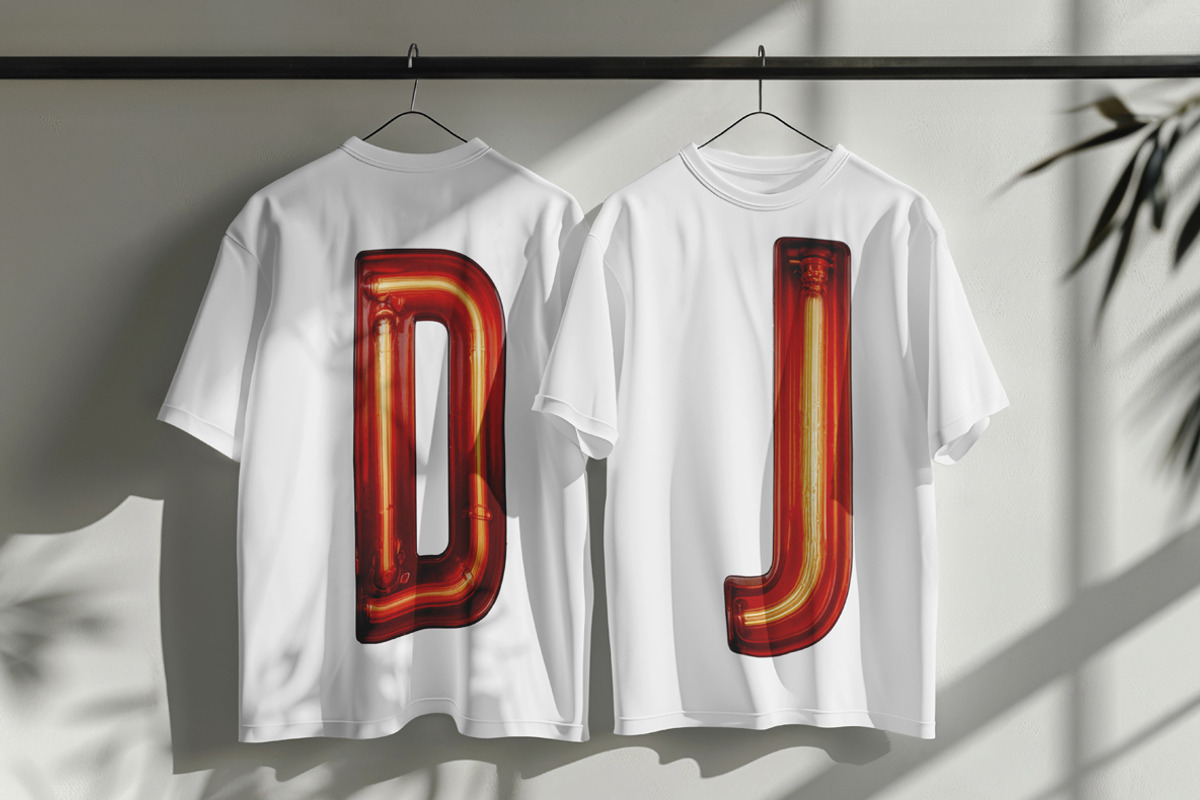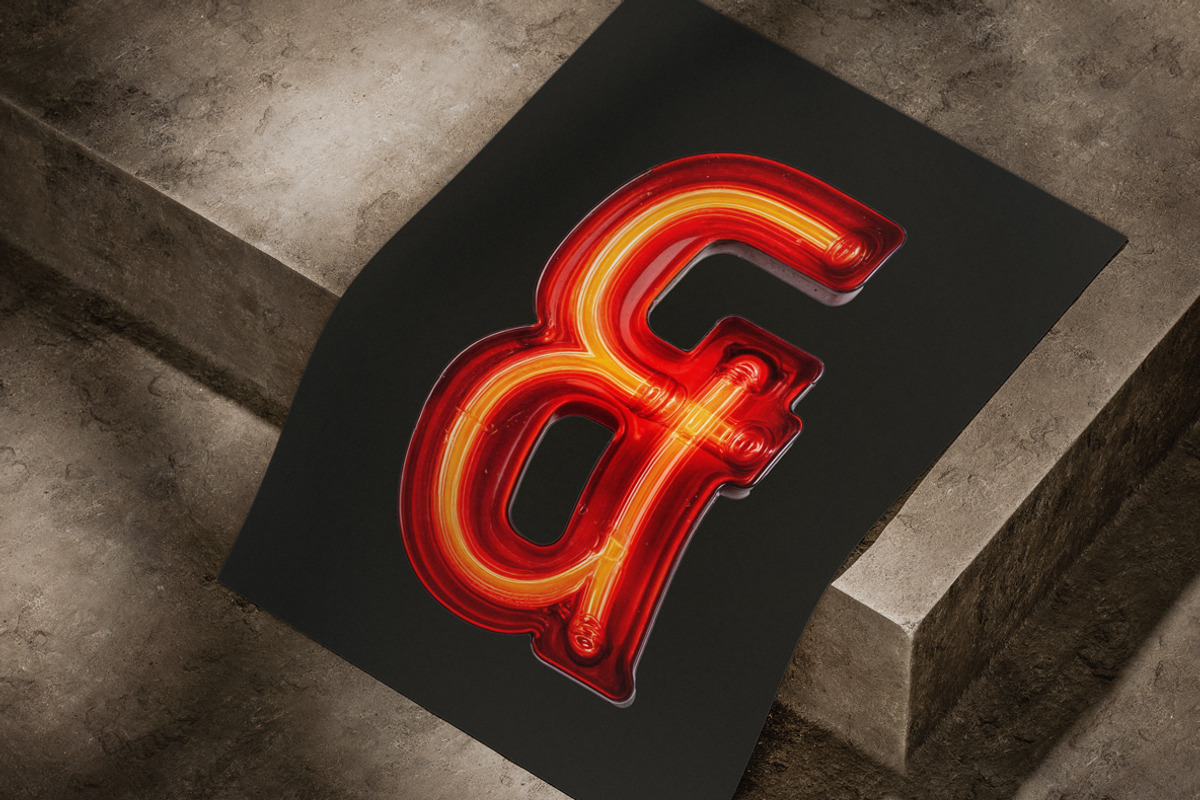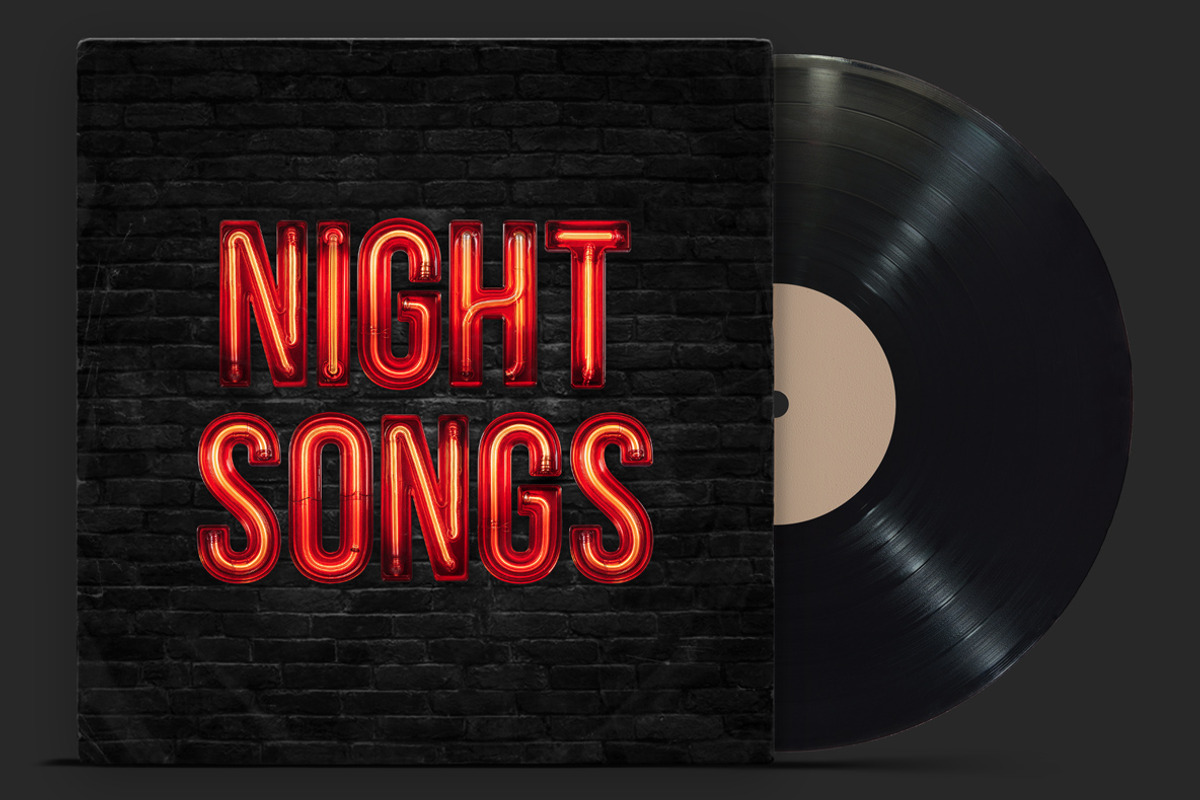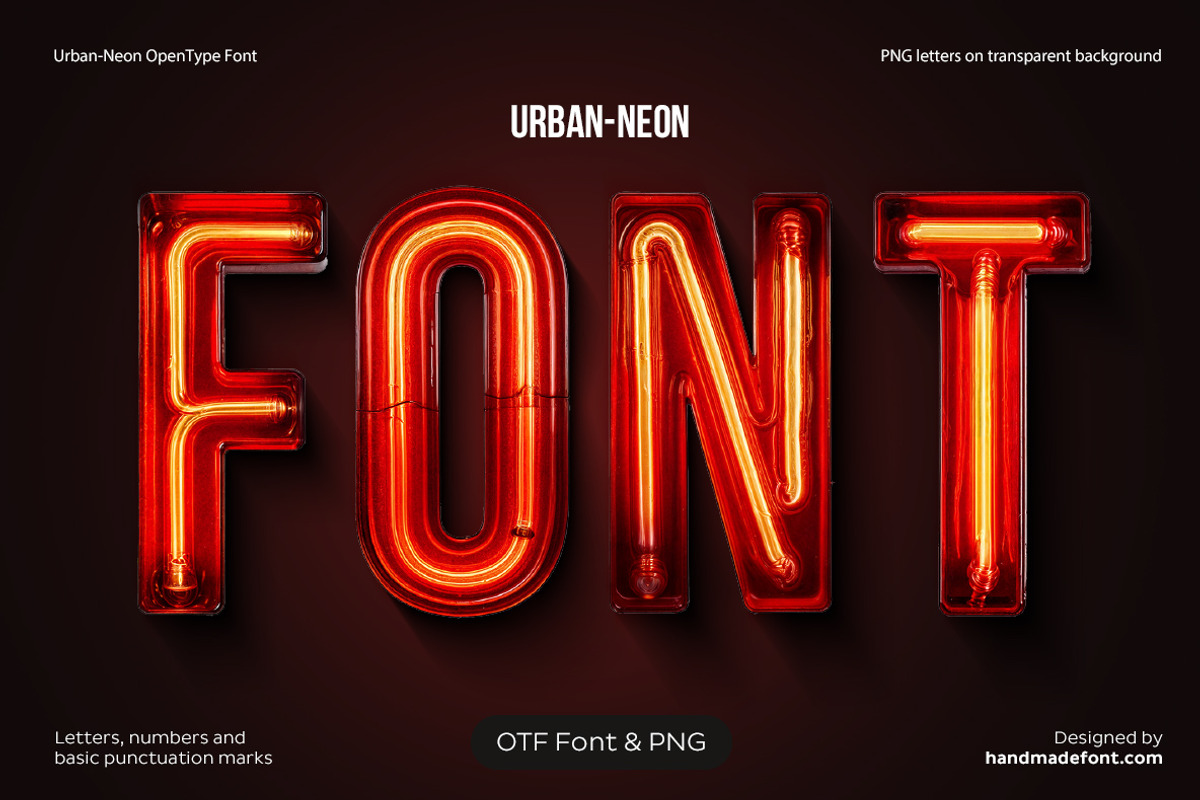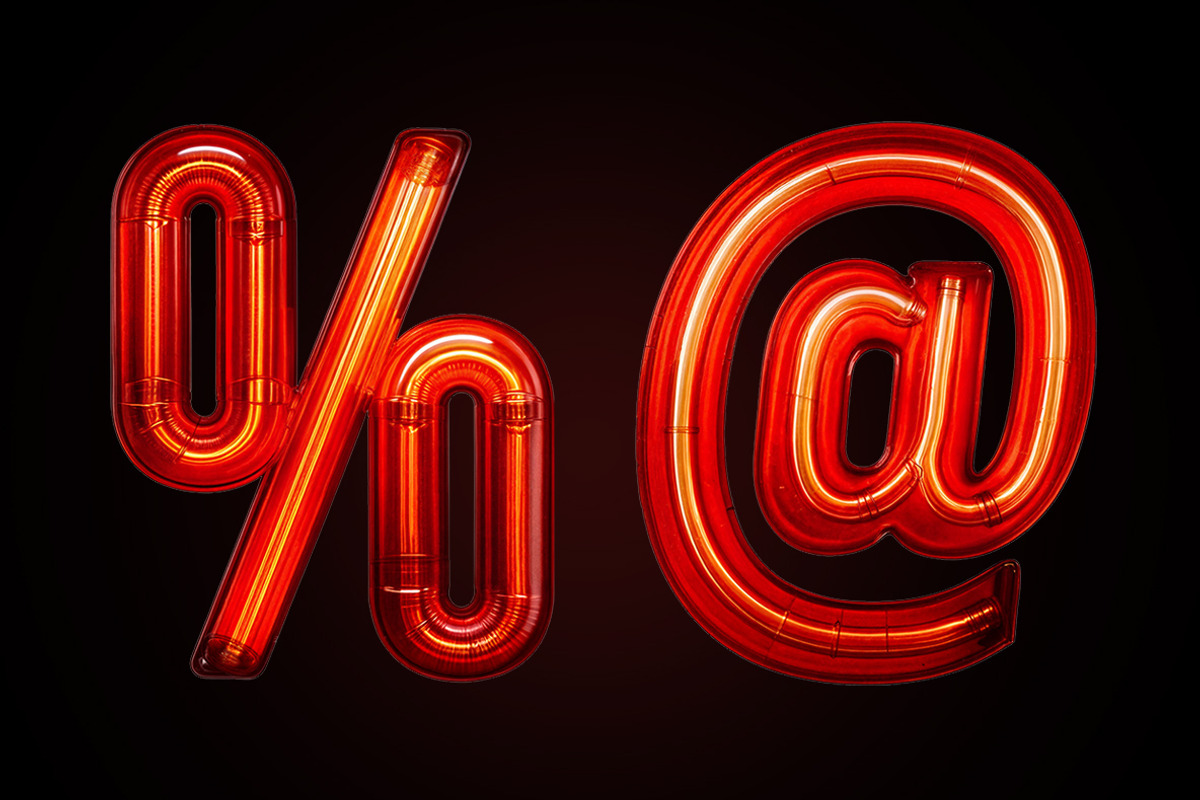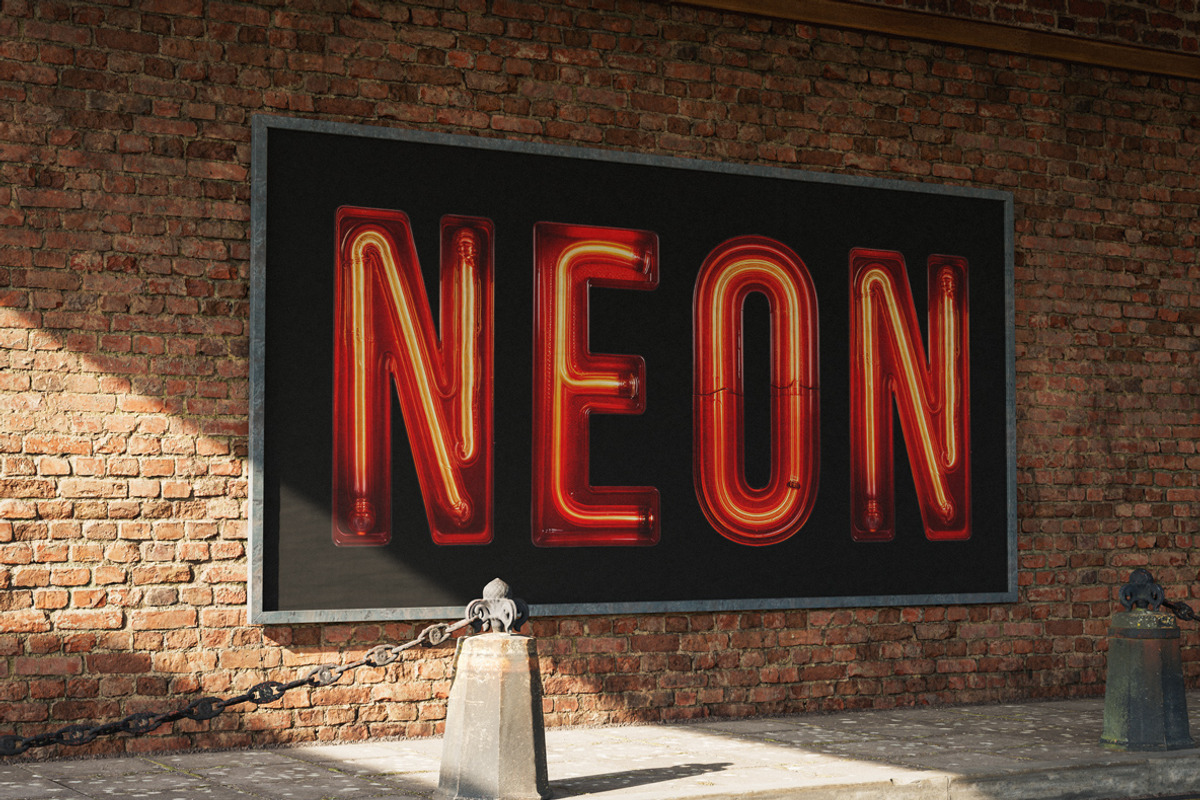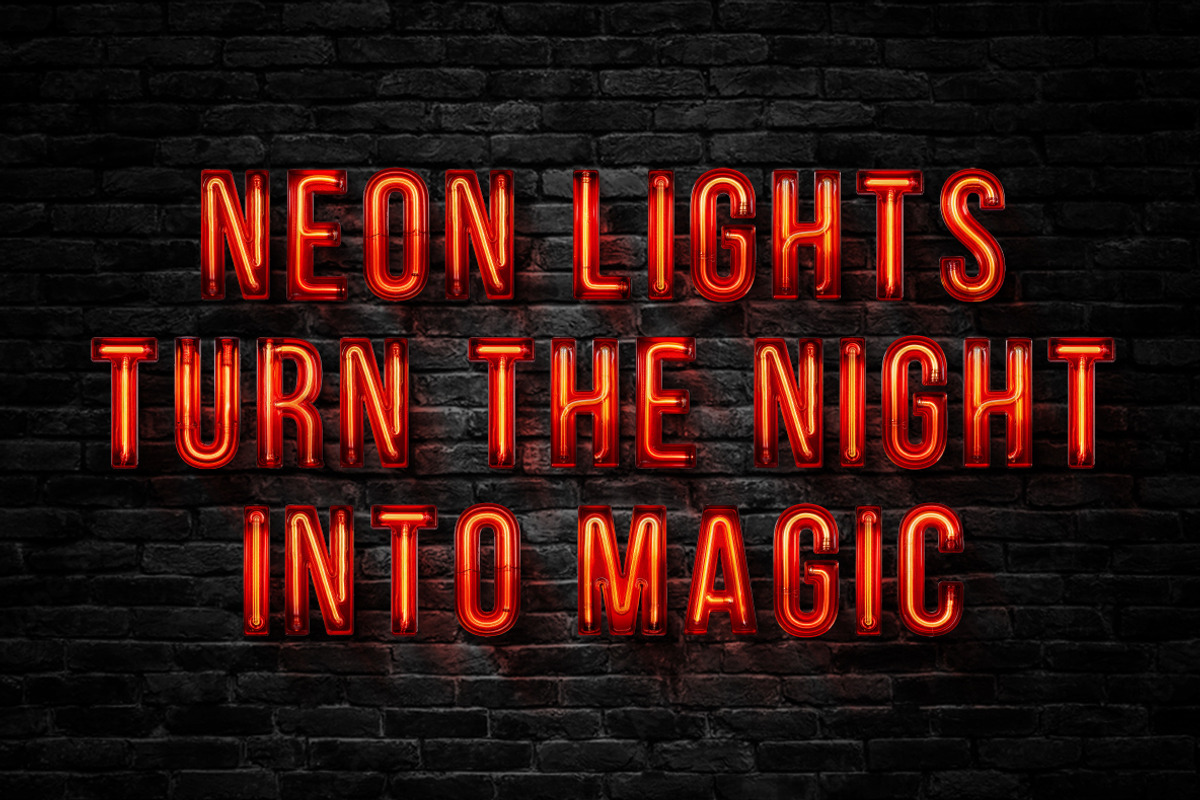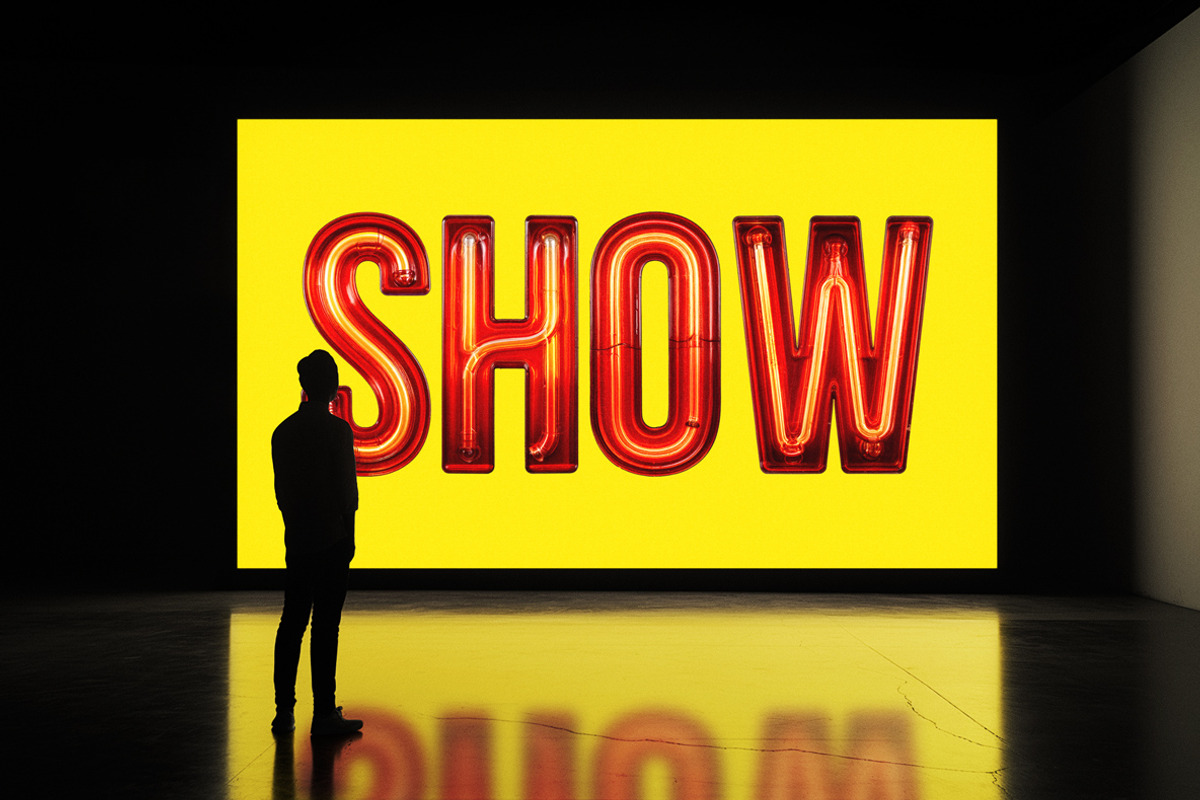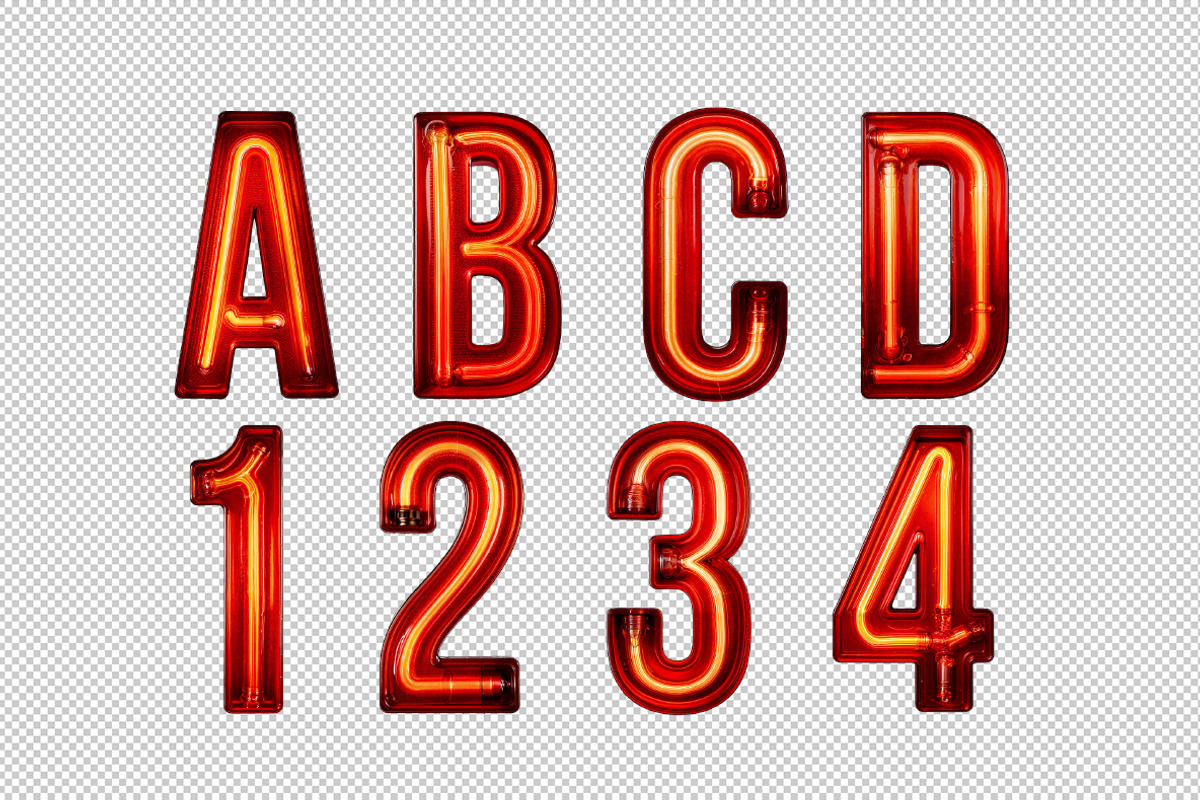
Urban Neon Font
Night lights flicker, and Urban Neon Font steals the show! This neon-inspired font electrifies every word with a bold neon glow, turning simple text into dazzling neon signage. Each letter shines in vibrant red, traced by fiery yellow-orange neon tubing, like a retro diner sign calling you in for a midnight snack. This neon typography blends old-school craftsmanship with a modern digital edge, creating a neon artwork that screams cool. Perfect for anyone who loves the neon aesthetic, neon lettering, or just wants their words to glow like a Vegas marquee. Warning: may cause uncontrollable admiration and light up your life!